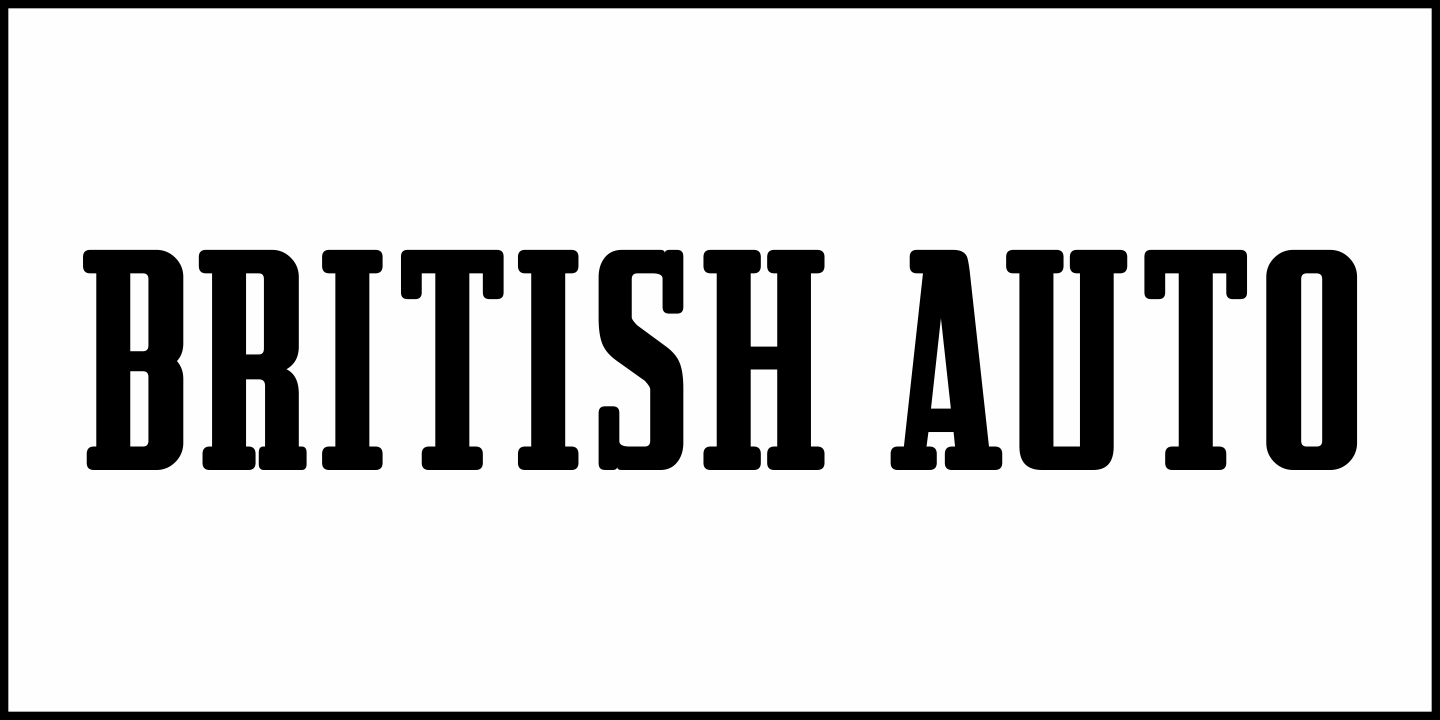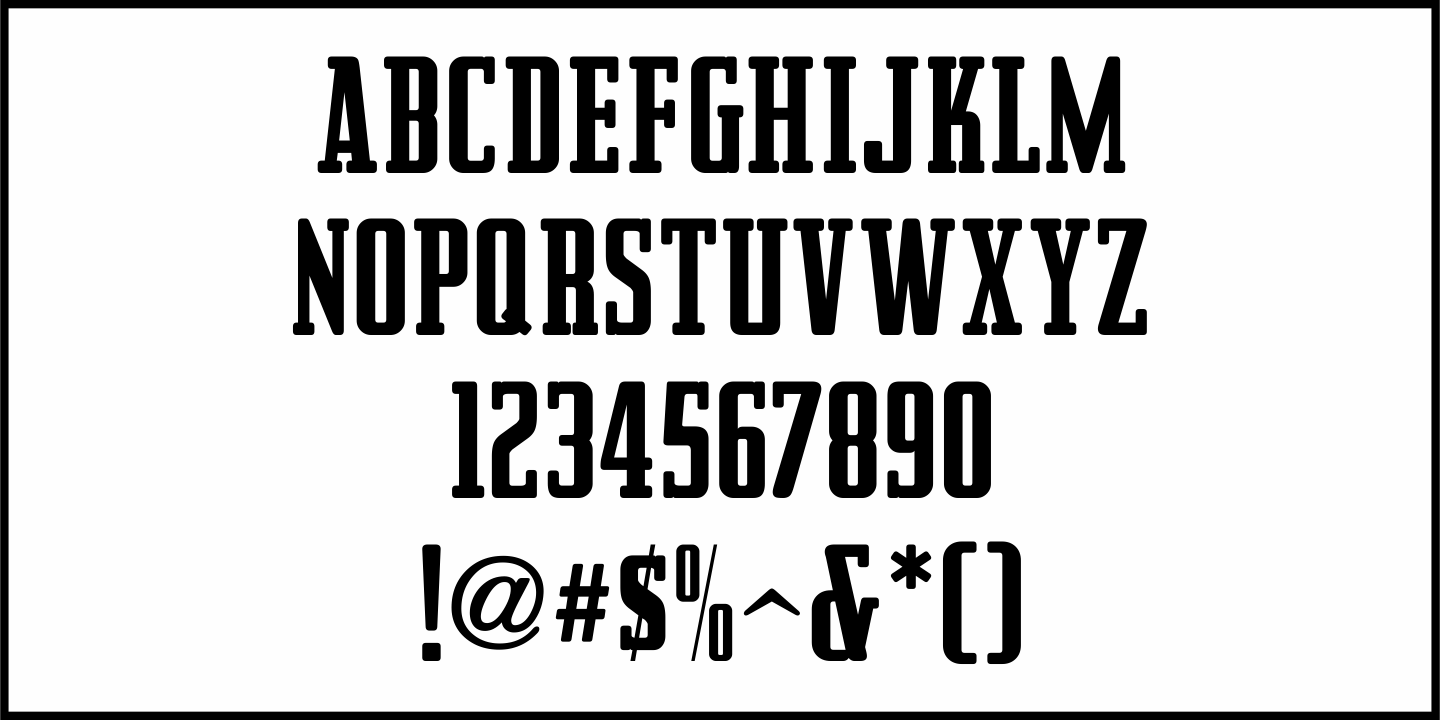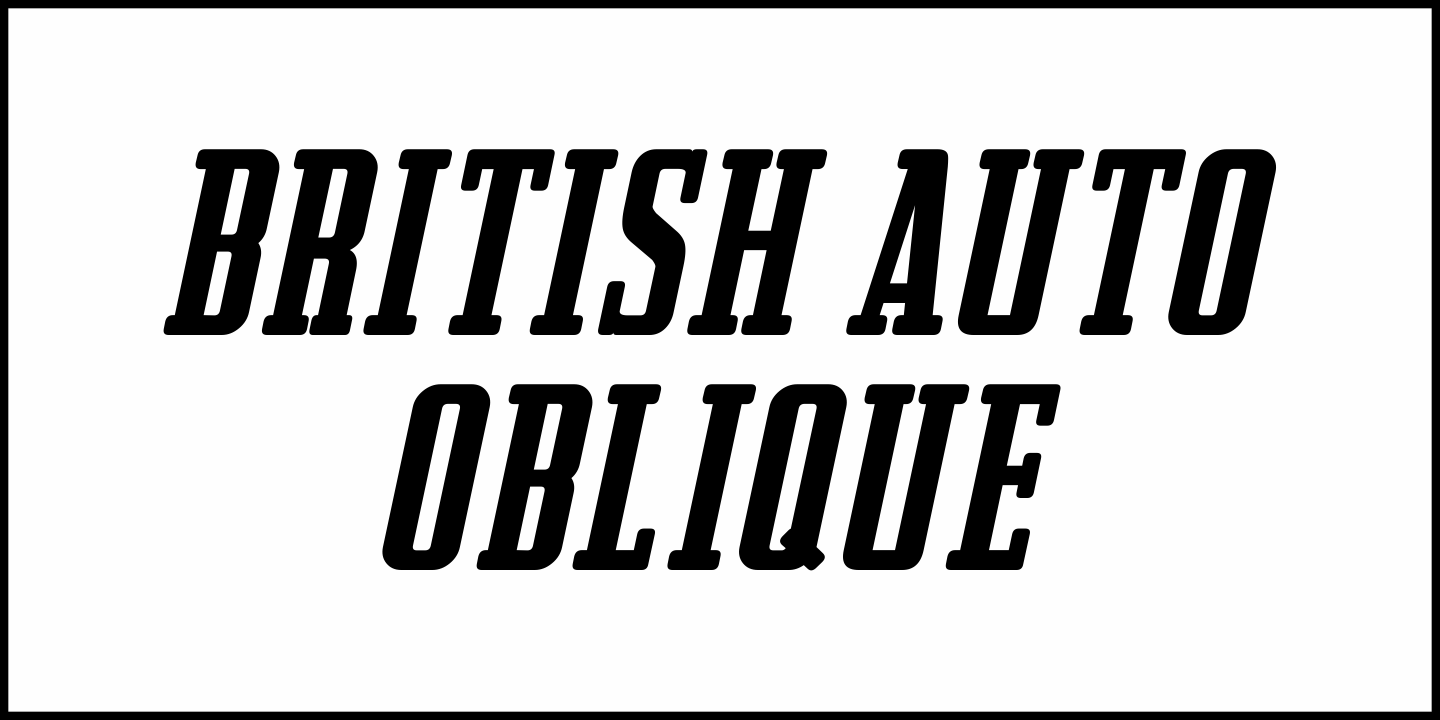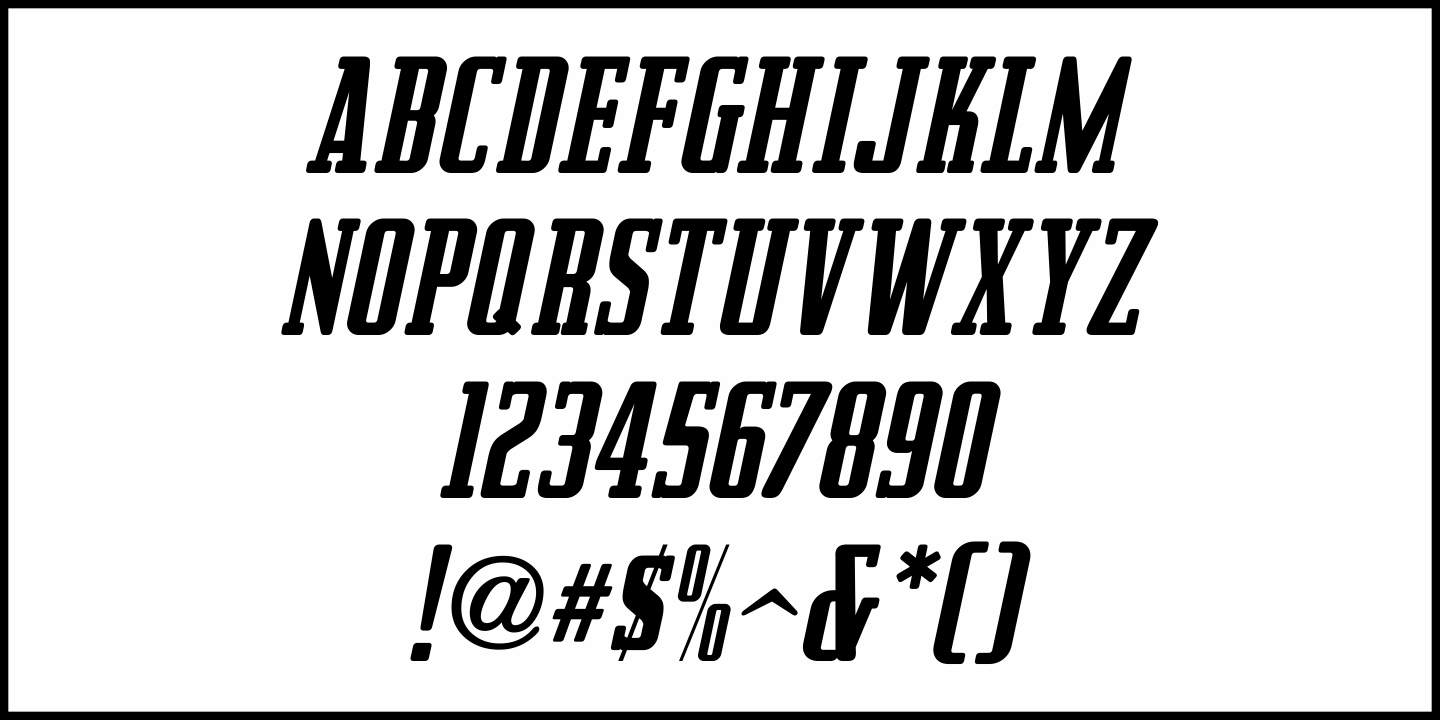
British Auto
The April, 1938 issue of Film India carried an ad for a British motor car called the Singer.  The hand lettered text was drawn in a bold, condensed serif style featuring rounded corners and serifs.
This is now available as British Auto JNL in both regular and oblique versions.